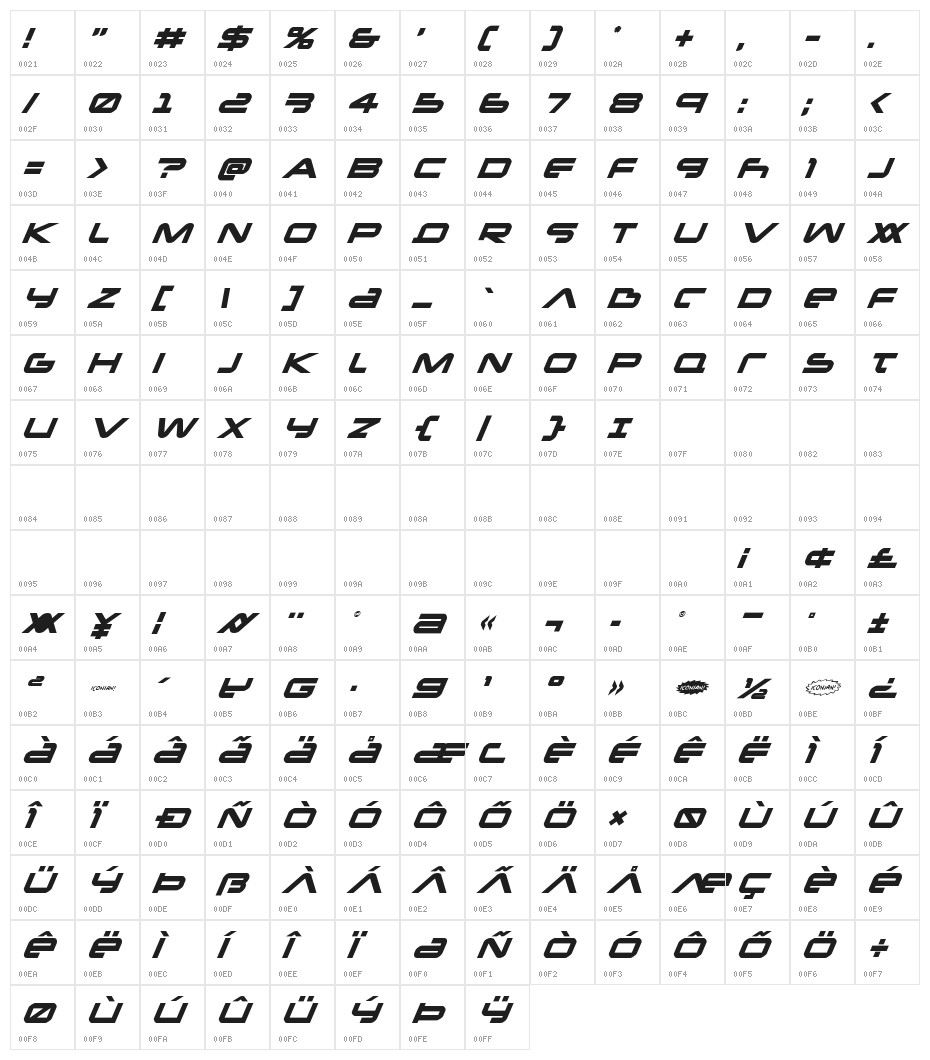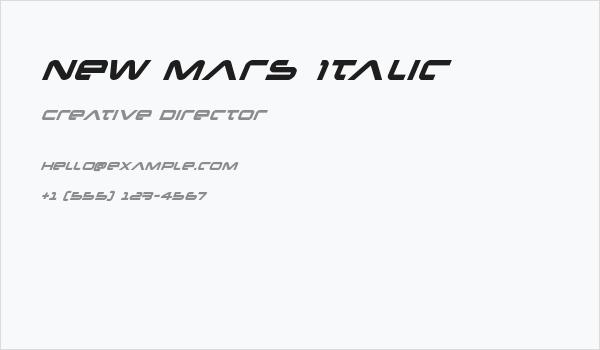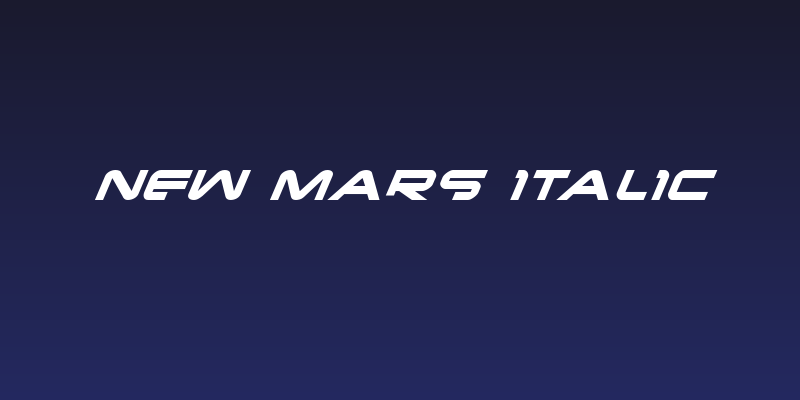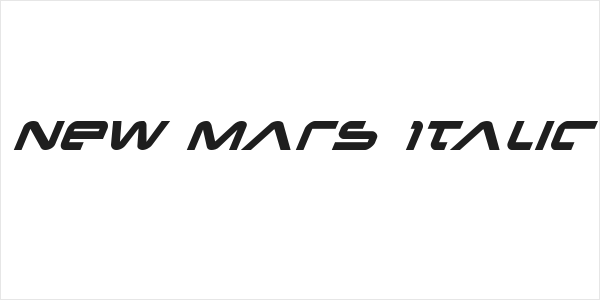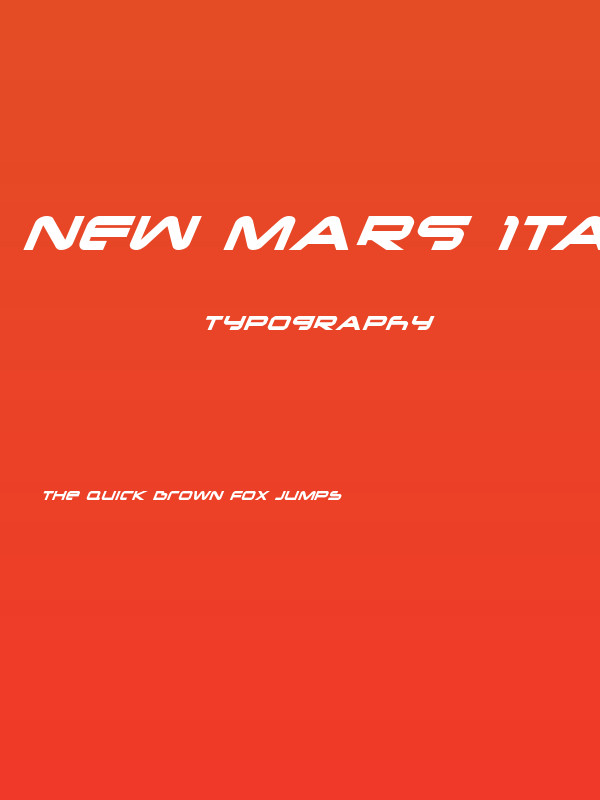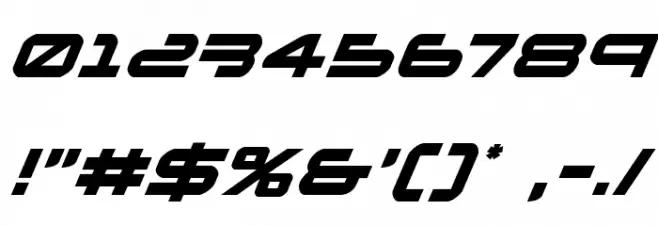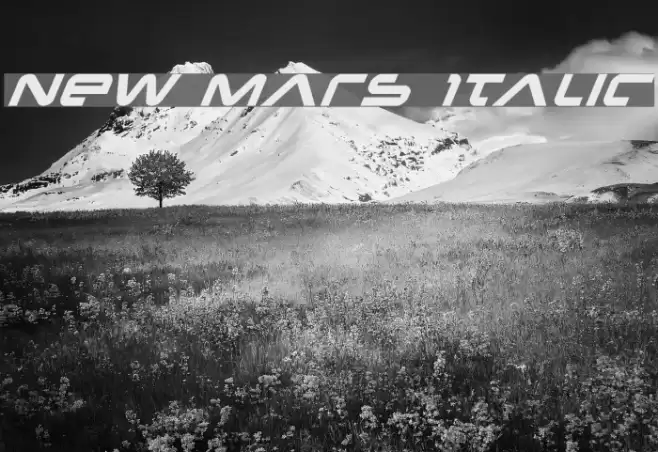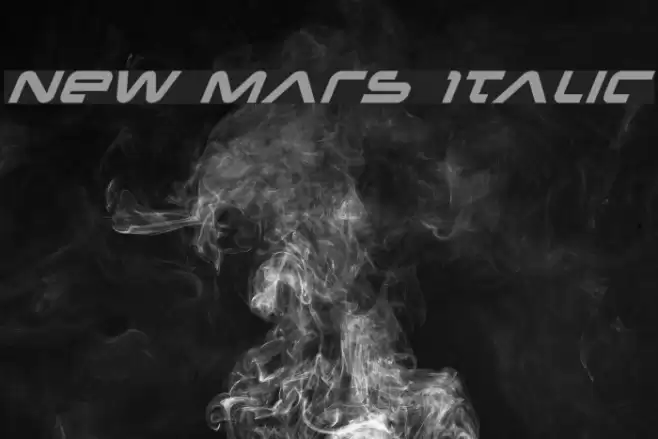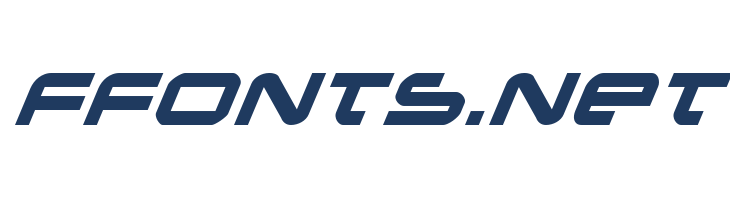
New Mars Italic Font
This font features a futuristic and dynamic design, characterized by its italicized, forward-leaning stance that conveys a sense of motion and speed. The characters are crafted with sharp angles and clean lines, giving it a sleek and modern appearance. The uppercase and lowercase letters maintain a consistent style, with a slightly condensed width that enhances its streamlined look. The numerals and special characters are designed to match the overall aesthetic, ensuring a cohesive visual experience. This font is ideal for projects that require a modern and energetic feel.